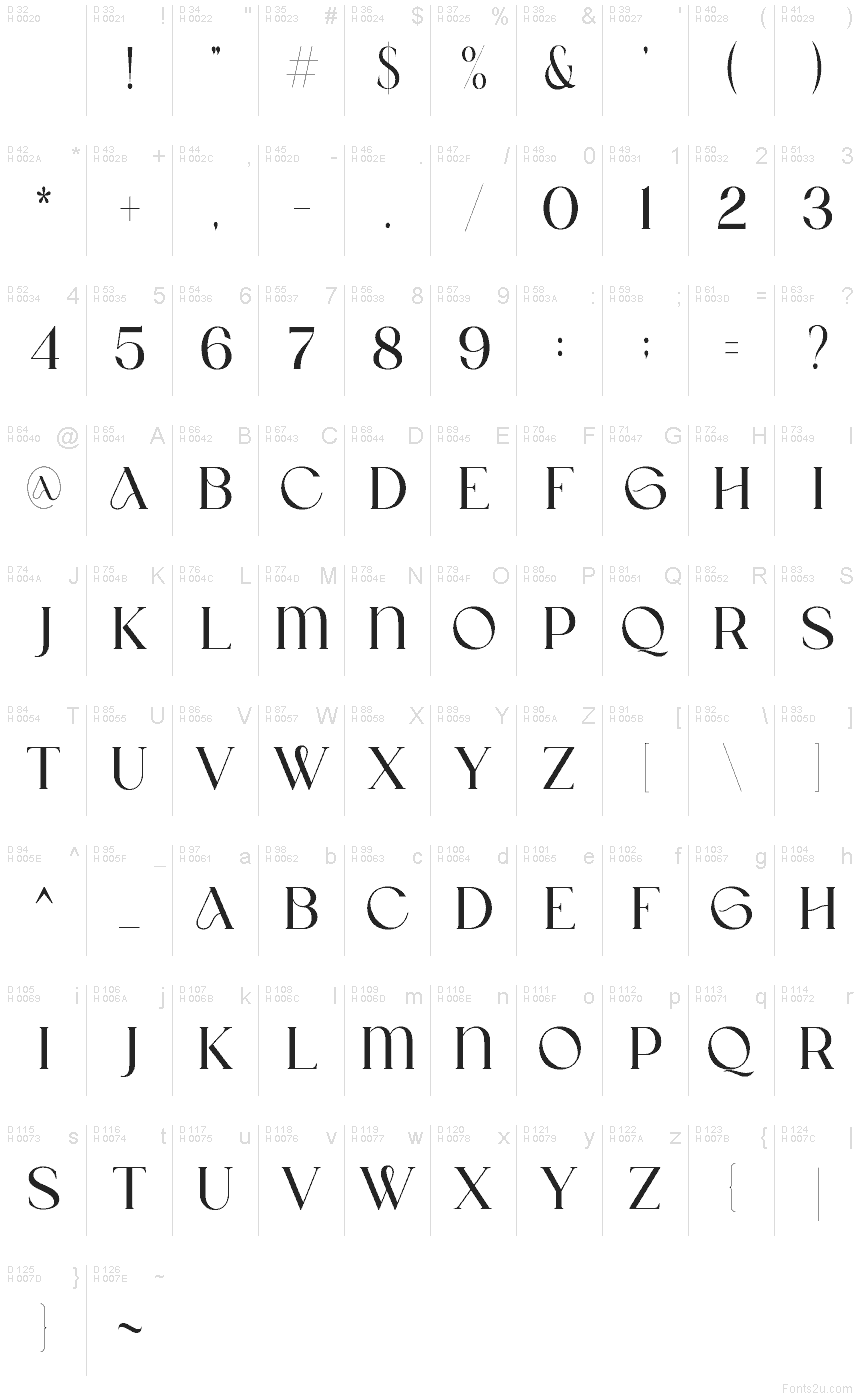
Worath
Worath font by Graphicxell is a free vintage serif font. Its signature move is that sculptural sweep stitched into the W, echoed by lithe curves and crisp, blade‑like thins that feel both nostalgic and fashion‑forward. Sturdy verticals anchor the forms while the smooth, inky bowls glide through words, giving headlines a luxe, editorial gleam without feeling fussy.
Using Worath, your titles carry a poised, couture attitude—great for boutique branding, wine labels, magazine mastheads, poster art, packaging, and wedding suites. This free font likes a little breathing room; set it larger with modest spacing to let the curves shine. Pair with a quiet, modern sans for body copy to keep the spotlight on Worath’s graceful rhythm.